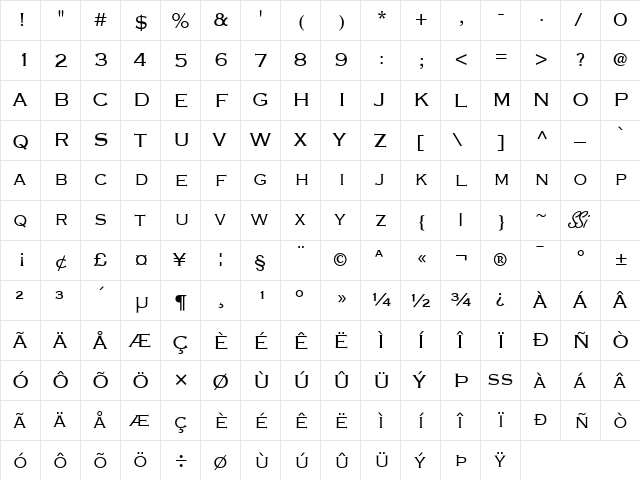
Copperplate Light SSi Light
Design Context for Copperplate Light SSi Typeface
Copperplate Light SSi is a composed and adaptable typeface that performs quietly and consistently across a wide range of design contexts. Its slender proportions lend an understated elegance to any composition.
Pro Tip: Use Copperplate Light SSi in both headline and body roles to test its range before committing to a single application.